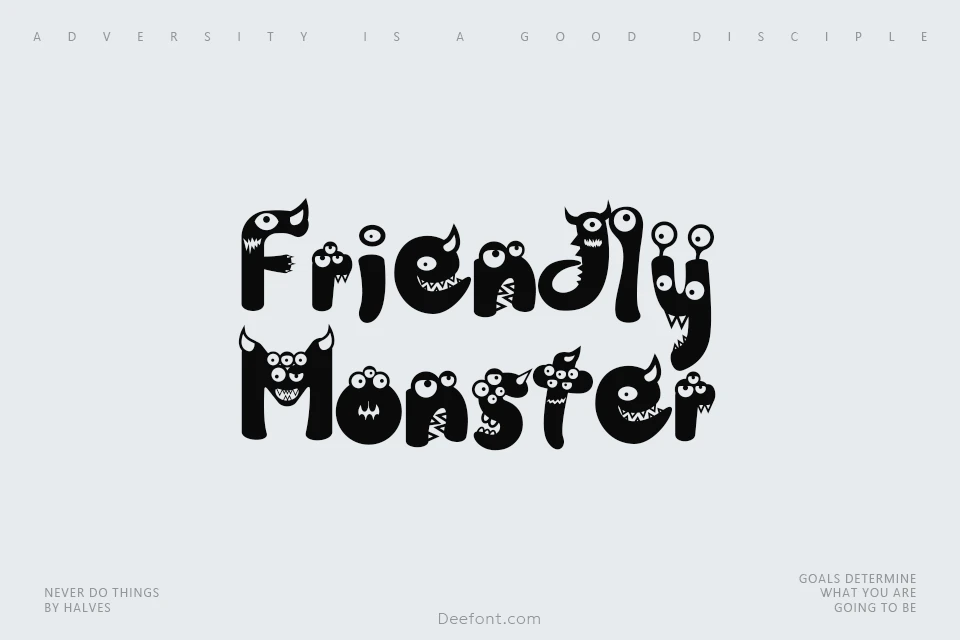
Friendly Monster Font
Friendly Monster Font is a playful, kid-friendly typeface inspired by cute and cheerful monsters. Its bold yet approachable style makes it perfect for posters, logos, clothing, books, and more. The font includes OpenType features like Swash, Stylistic Sets, Alternates, and Ligatures, accessible via programs like Adobe Illustrator and Photoshop. It also supports multiple languages, adding versatility to your design projects.